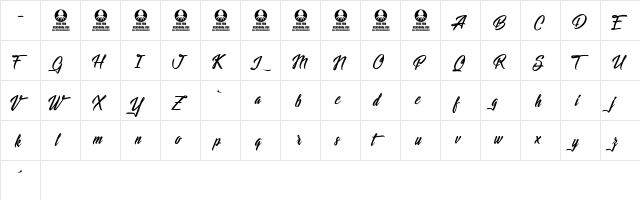
Lights of the Stardust Regular
| Foundry | Octotype |
| Designer | Octotype |
Design Context for Lights of the Stardust Typeface
Lights of the Stardust is a composed and adaptable typeface that performs quietly and consistently across a wide range of design contexts. Its slender proportions lend an understated elegance to any composition.